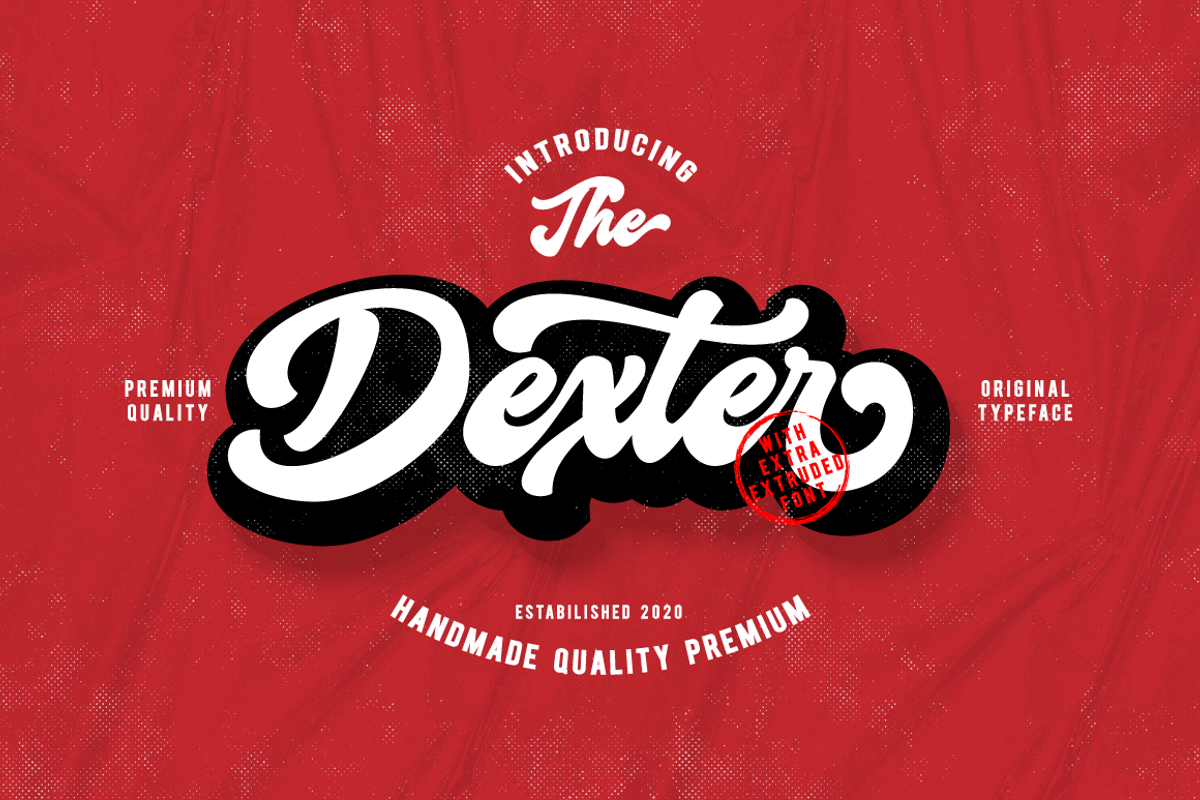
Add a touch of elegance and personality to your designs with the Dexter Script Font Free Download. This modern calligraphy-style font features fluid strokes, graceful curves, and a confident vibe that’s perfect for logos, wedding invitations, social media posts, and lifestyle branding.
Dexter Script offers a natural handwritten feel that works beautifully across both casual and upscale designs. Its smooth flow and artistic character make it an excellent choice for adding a signature-style element to your work. Whether you're designing for a beauty brand, personal blog, or boutique product, Dexter brings a polished, yet approachable charm.